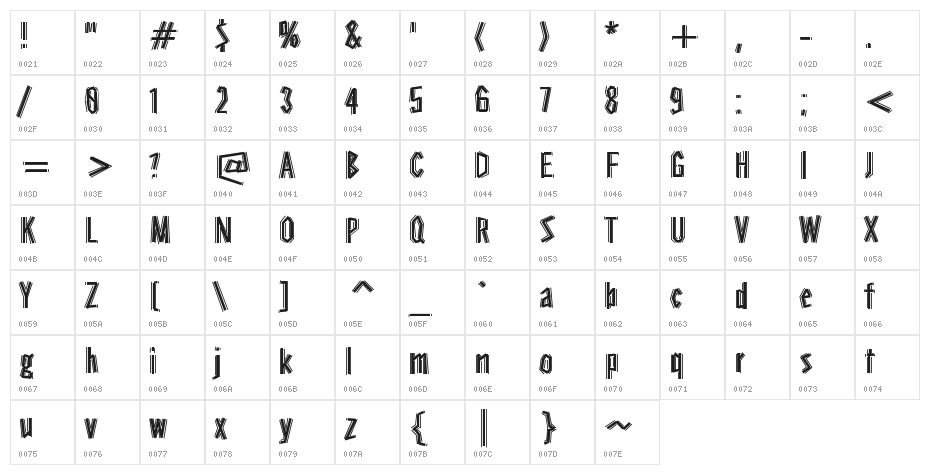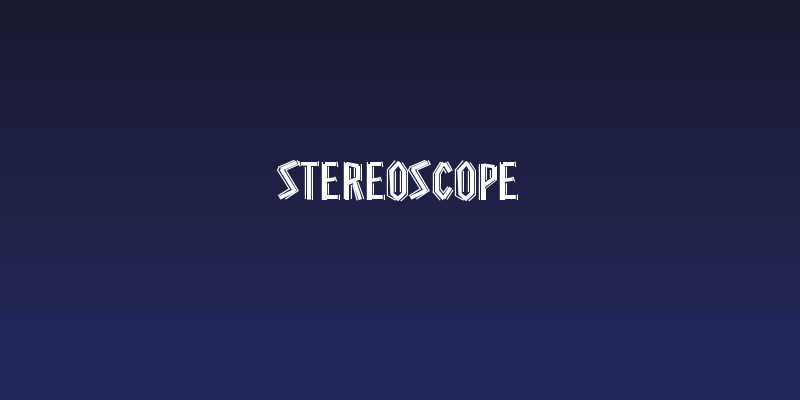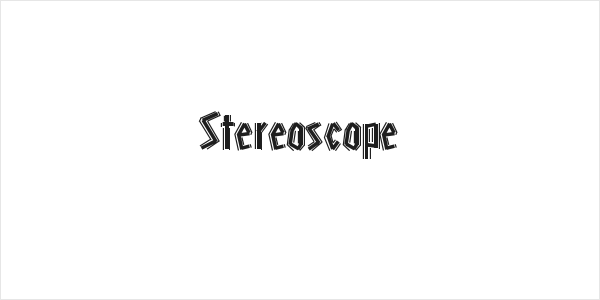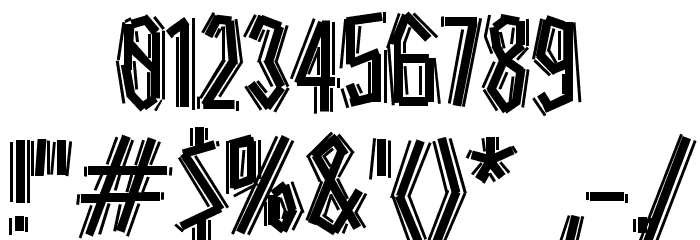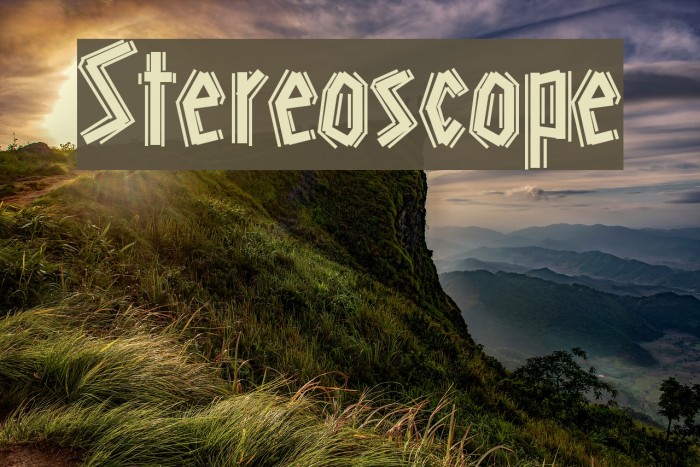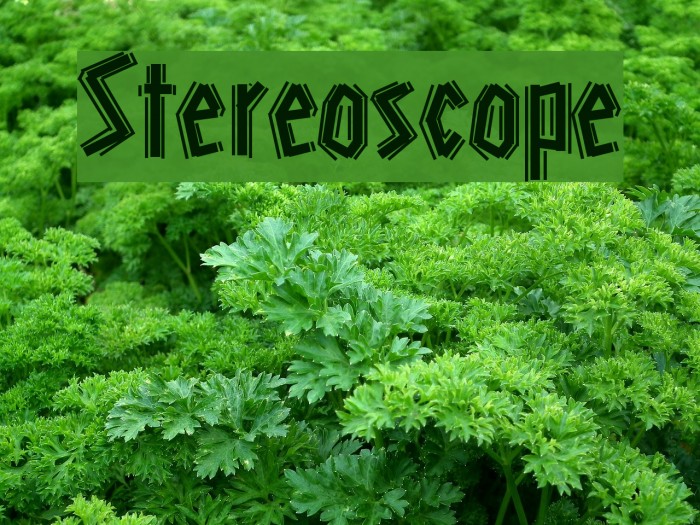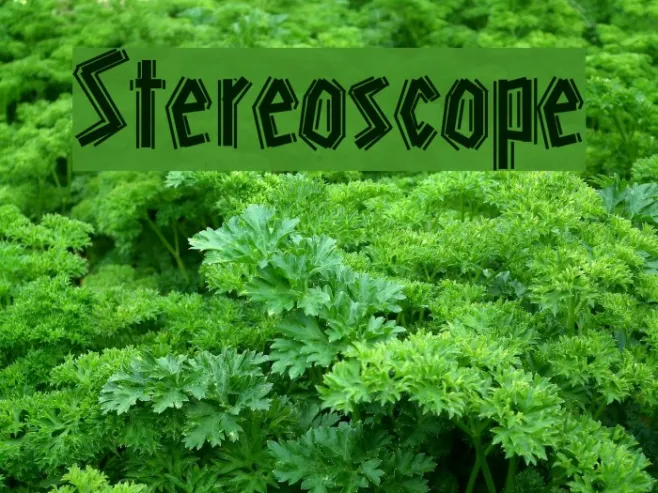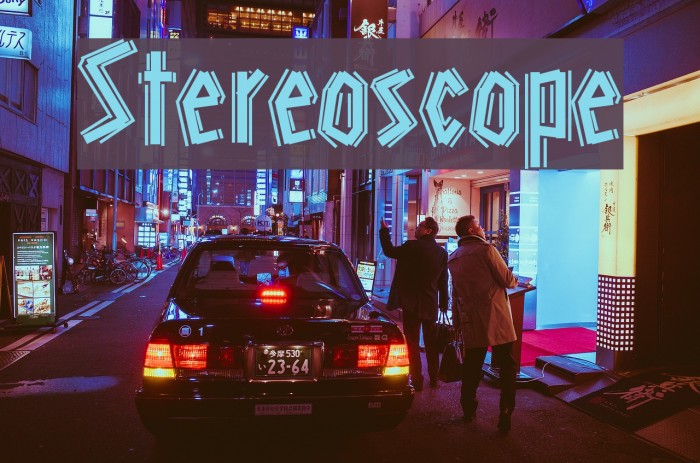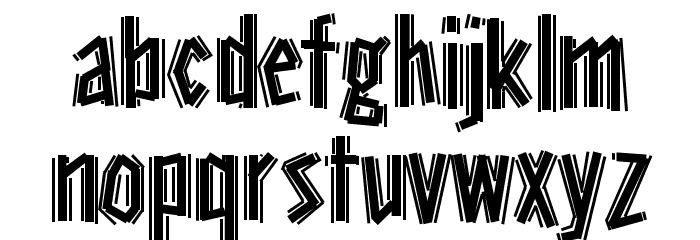
Stereoscope Font
Stereoscope Description
This font features a bold and dynamic design with a three-dimensional effect, creating a sense of depth and movement. The characters are constructed with thick, angular lines and sharp edges, giving them a geometric and futuristic appearance. The uppercase and lowercase letters maintain a consistent style, with each character exhibiting a unique, stylized form. Numbers and special characters are equally bold and distinctive, ensuring a cohesive look across all text elements. The font's striking visual impact makes it ideal for attention-grabbing designs.
| Overall Style | Futuristic, Geometric |
| Proposed Projects | Ideal for posters, album covers, video game graphics, and any project requiring a bold, futuristic aesthetic. |